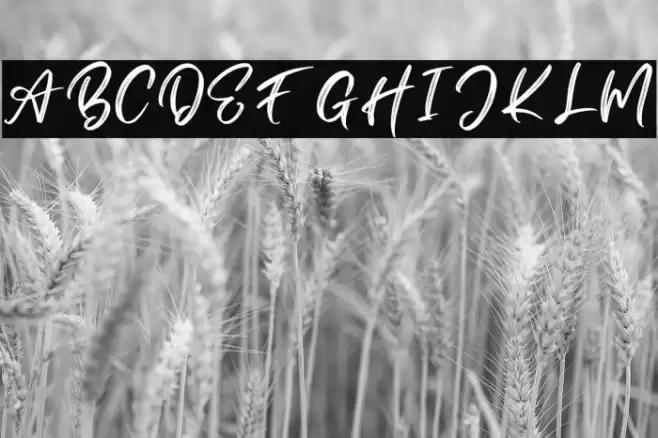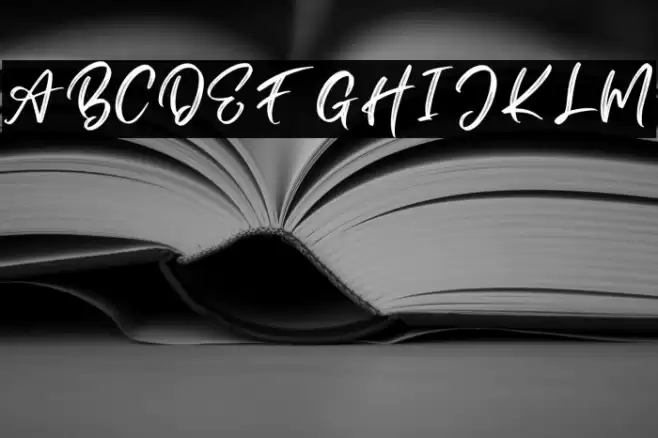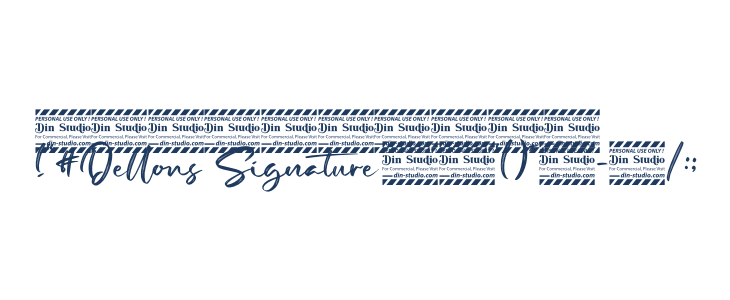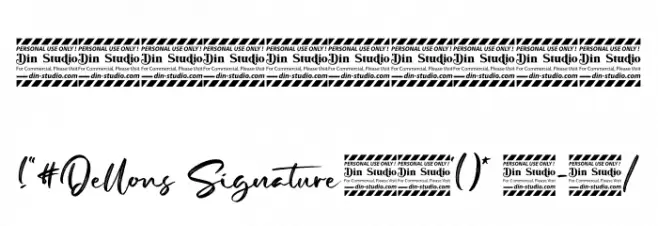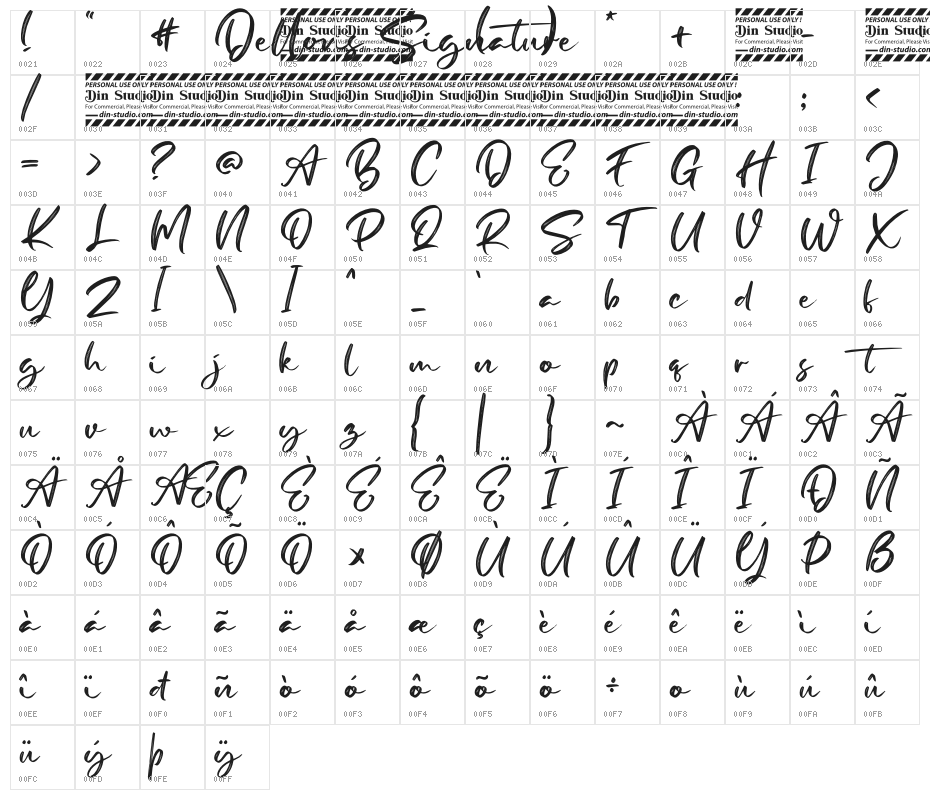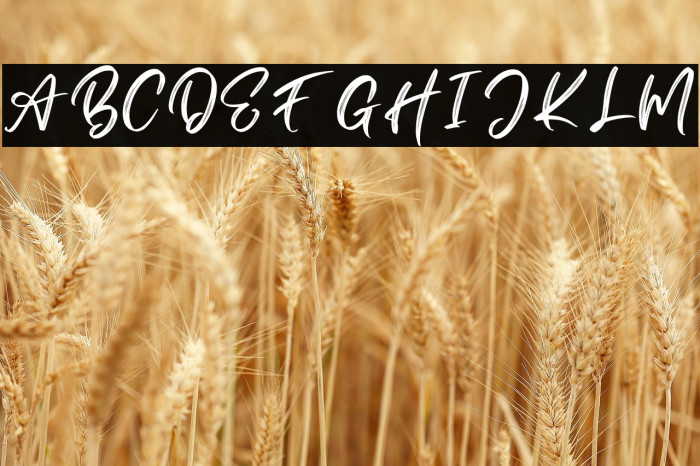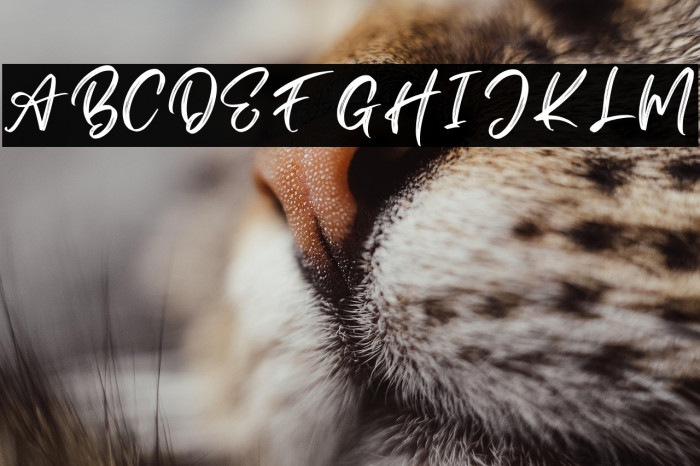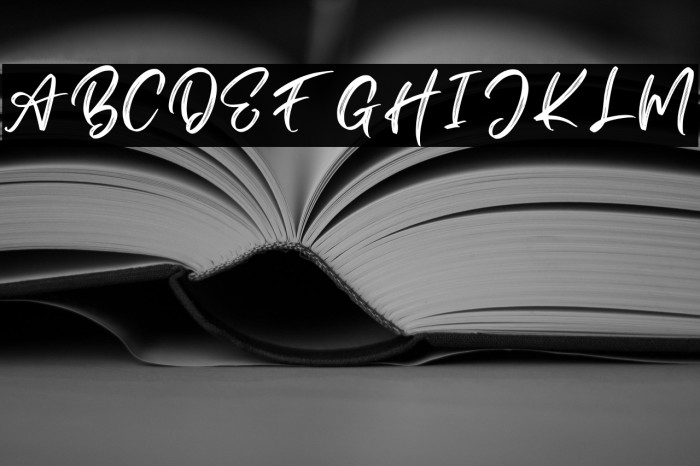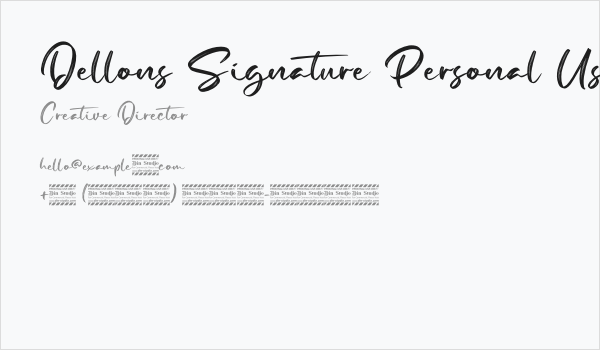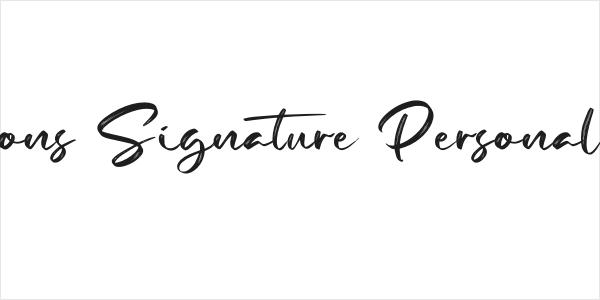
Dellons Signature Personal Use Font
Dellons Signature Personal Use Description
This font exhibits a flowing, cursive style with a handwritten appearance, characterized by its elegant and fluid strokes. The uppercase letters are bold and slightly slanted, giving a dynamic and lively feel. The lowercase letters maintain a consistent style, with some characters featuring unique loops and flourishes that add a personal touch. The numbers and special characters are designed to match the overall aesthetic, ensuring a cohesive look across all text. This font is ideal for creating a signature-like effect, making it perfect for personal branding or artistic projects.
A bold, cursive handwritten font with elegant, flowing strokes from Uncategorized fonts.
- Proposed Projects: Ideal for personal branding, artistic projects, invitations, and logo design.
- Use Case: Logos, Headlines, Personal branding